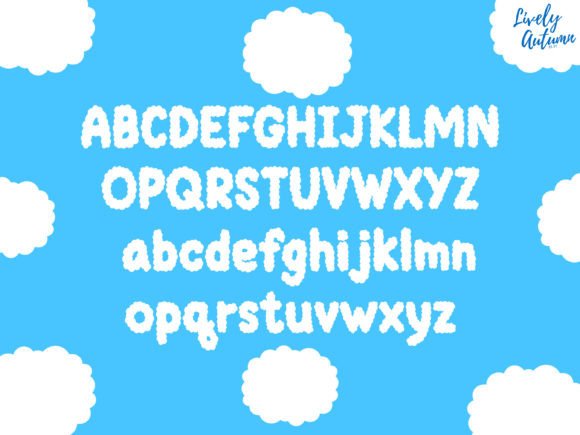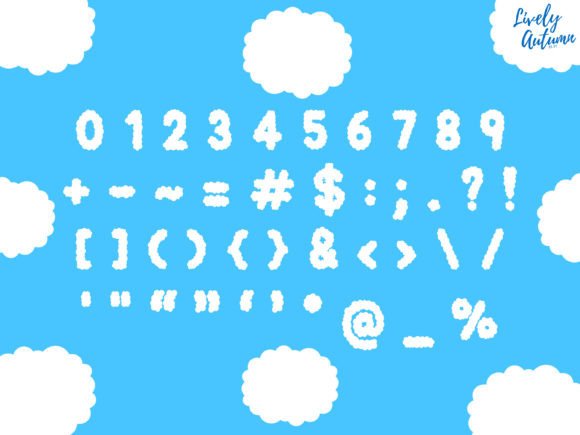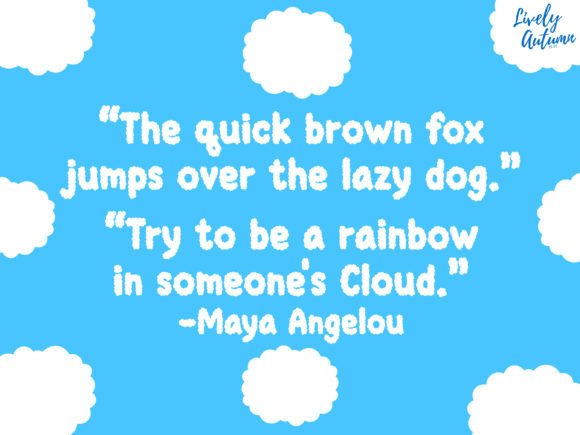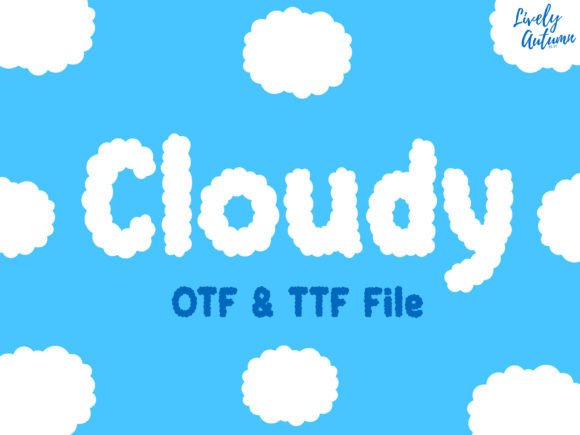
Introducing Cloudy Font: The Ultimate Decorative Font for Joyful Designs
Are you tired of using the same old fonts in your designs? Do you want to add a touch of whimsy and playfulness to your creative projects? Look no further than Cloudy Font, a cute and quirky decorative font that’s sure to bring a smile to your face. In this article, we’ll take a closer look at Cloudy Font, its features, and how you can use it to elevate your designs.
What is Cloudy Font?
Cloudy Font is a beautiful display font that’s designed to add a joyful touch to your designs. With its unique and quirky style, it’s perfect for designers and crafters who want to create eye-catching and engaging projects. Whether you’re working on a branding project, a social media graphic, or a craft project, Cloudy Font is sure to make your designs stand out.
Features of Cloudy Font
So, what makes Cloudy Font so special? Here are just a few of its key features:
- Unique and Quirky Style: Cloudy Font has a one-of-a-kind design that’s sure to grab attention. Its quirky style is perfect for designers who want to add a touch of personality to their projects.
- Decorative and Playful: This font is designed to be decorative and playful, making it perfect for projects that require a bit of whimsy.
- Easily Readable: Despite its decorative style, Cloudy Font is still easily readable, making it perfect for use in a variety of projects.
- High-Quality Design: Cloudy Font is designed with high-quality graphics, ensuring that it looks great in any project.
How to Use Cloudy Font in Your Designs
Now that we’ve covered the features of Cloudy Font, let’s talk about how you can use it in your designs. Here are a few ideas to get you started:
- Branding Projects: Use Cloudy Font to create eye-catching logos, business cards, and other branding materials.
- Social Media Graphics: Add a touch of whimsy to your social media graphics with Cloudy Font. It’s perfect for creating engaging and shareable content.
- Craft Projects: Cloudy Font is perfect for crafters who want to add a personal touch to their projects. Use it to create custom signs, banners, and other decorative items.
- Party Decorations: Use Cloudy Font to create custom party decorations, such as banners, invitations, and more.
Tips for Using Cloudy Font
Here are a few tips for using Cloudy Font in your designs:
- Use it Sparingly: While Cloudy Font is a beautiful font, it can be overwhelming if used too much. Use it sparingly to add a touch of whimsy to your designs.
- Pair it with Other Fonts: Cloudy Font pairs well with other fonts, so don’t be afraid to experiment with different combinations.
- Experiment with Colors: Cloudy Font looks great in a variety of colors, so don’t be afraid to experiment with different color schemes.
In conclusion, Cloudy Font is a beautiful and quirky decorative font that’s perfect for designers and crafters who want to add a touch of whimsy to their projects. With its unique style, easily readable design, and high-quality graphics, it’s sure to make your designs stand out. Whether you’re working on a branding project, a social media graphic, or a craft project, Cloudy Font is a great choice. So why not give it a try and see how it can elevate your designs?